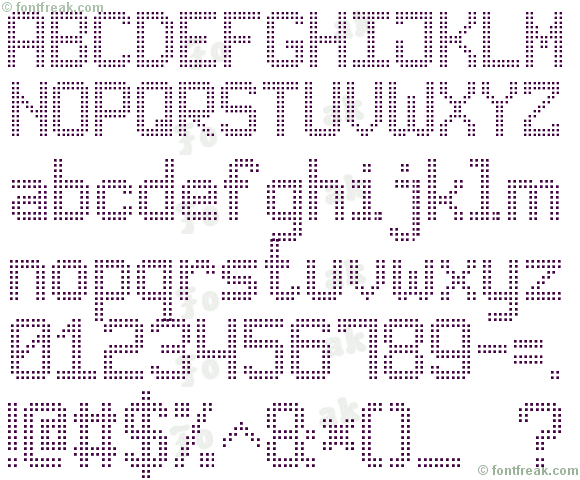
Advanced Dot Digital-7
The Advanced Dot Digital-7 font by Style-7 is a striking display typeface that falls into the digital category. This font is characterized by its unique dot matrix style, which gives it a retro, tech-inspired look. The stroke weight is uniform, creating a consistent and clean visual appearance. With its moderate letter spacing, the font ensures readability while maintaining its distinctive digital aesthetic. The dot-based design adds an element of creativity, making it an eye-catching choice for various applications.
The Advanced Dot Digital-7 font is particularly well-suited for use in digital media, including website headers, video game graphics, and technology-themed promotional materials. Its playful yet professional style makes it an excellent choice for event posters, especially for tech expos or gaming conventions. Additionally, it can enhance branding for startups in the tech industry, providing a modern touch to logos and business cards. Graphic designers and content creators will find this font perfect for creating unique social media graphics that stand out in crowded feeds.
Targeting graphic designers, small business owners, and content creators, the Advanced Dot Digital-7 font caters to those looking to infuse their projects with a modern, digital flair. This font not only embodies a sense of innovation but also retains a legibility that is essential for effective communication.
In conclusion, the Advanced Dot Digital-7 font free download offers a refreshing take on digital typography. Its dot matrix design combined with versatility makes it a standout choice for anyone seeking to add a contemporary edge to their work. Whether you're designing for print or digital platforms, this font guarantees to leave a lasting impression.